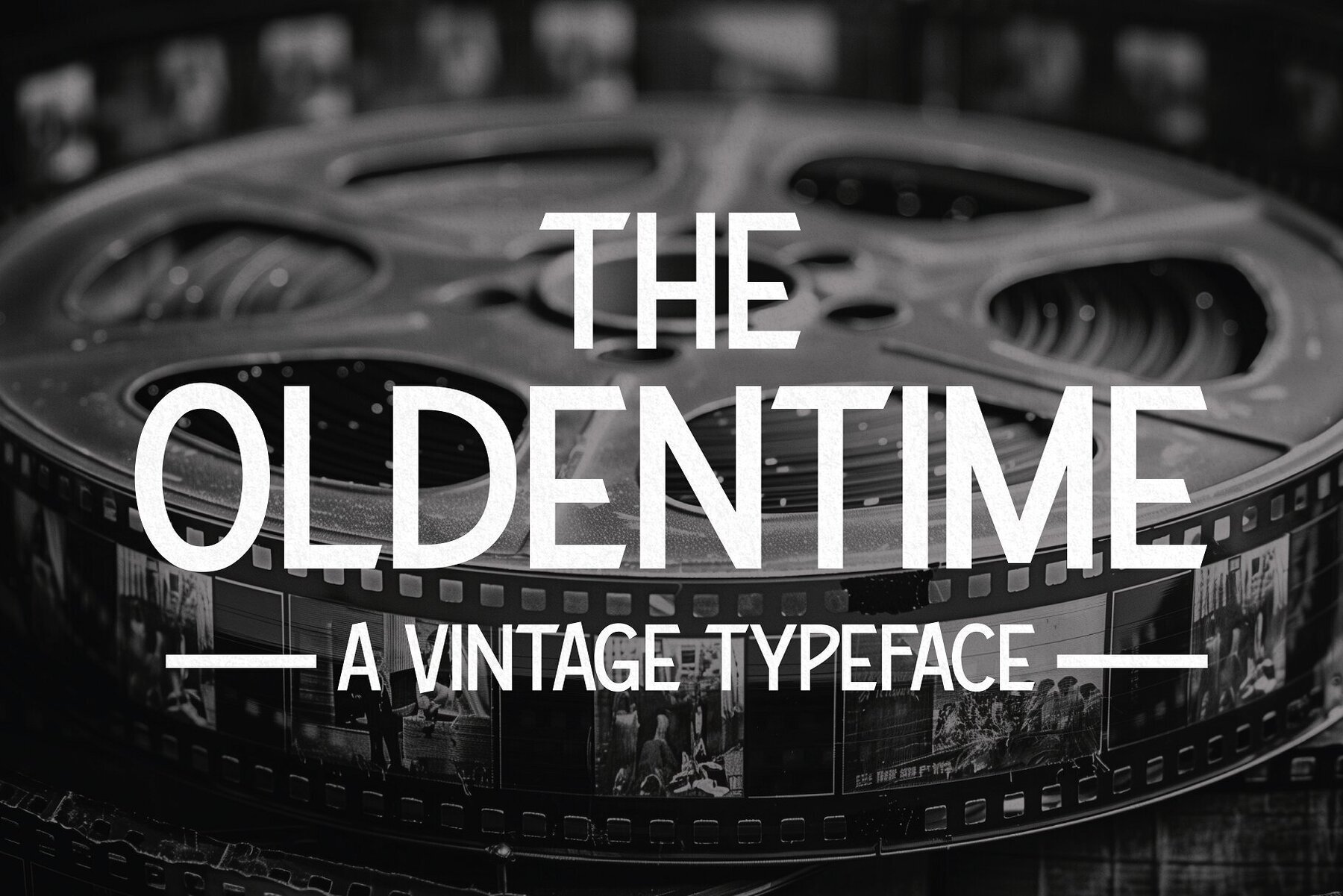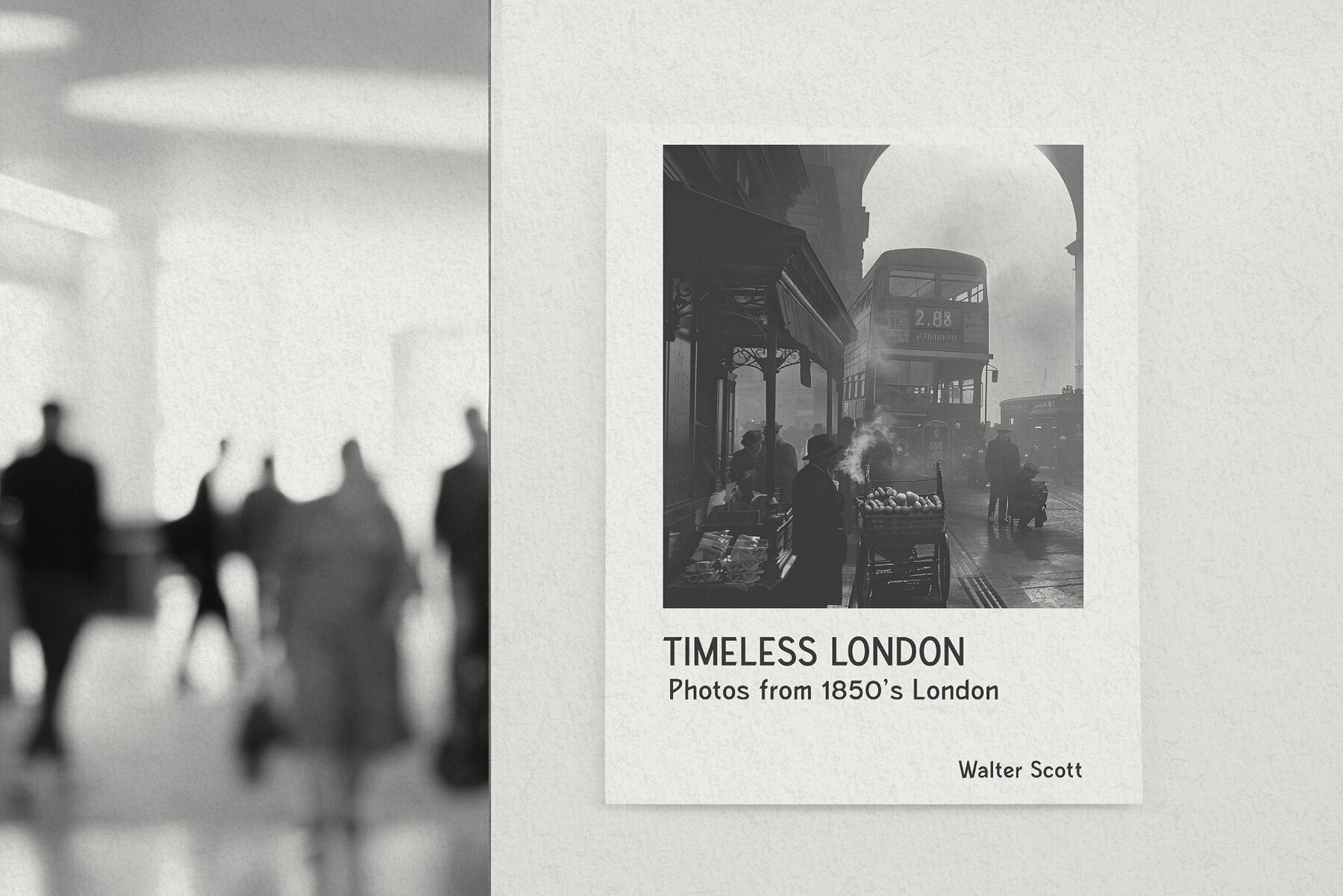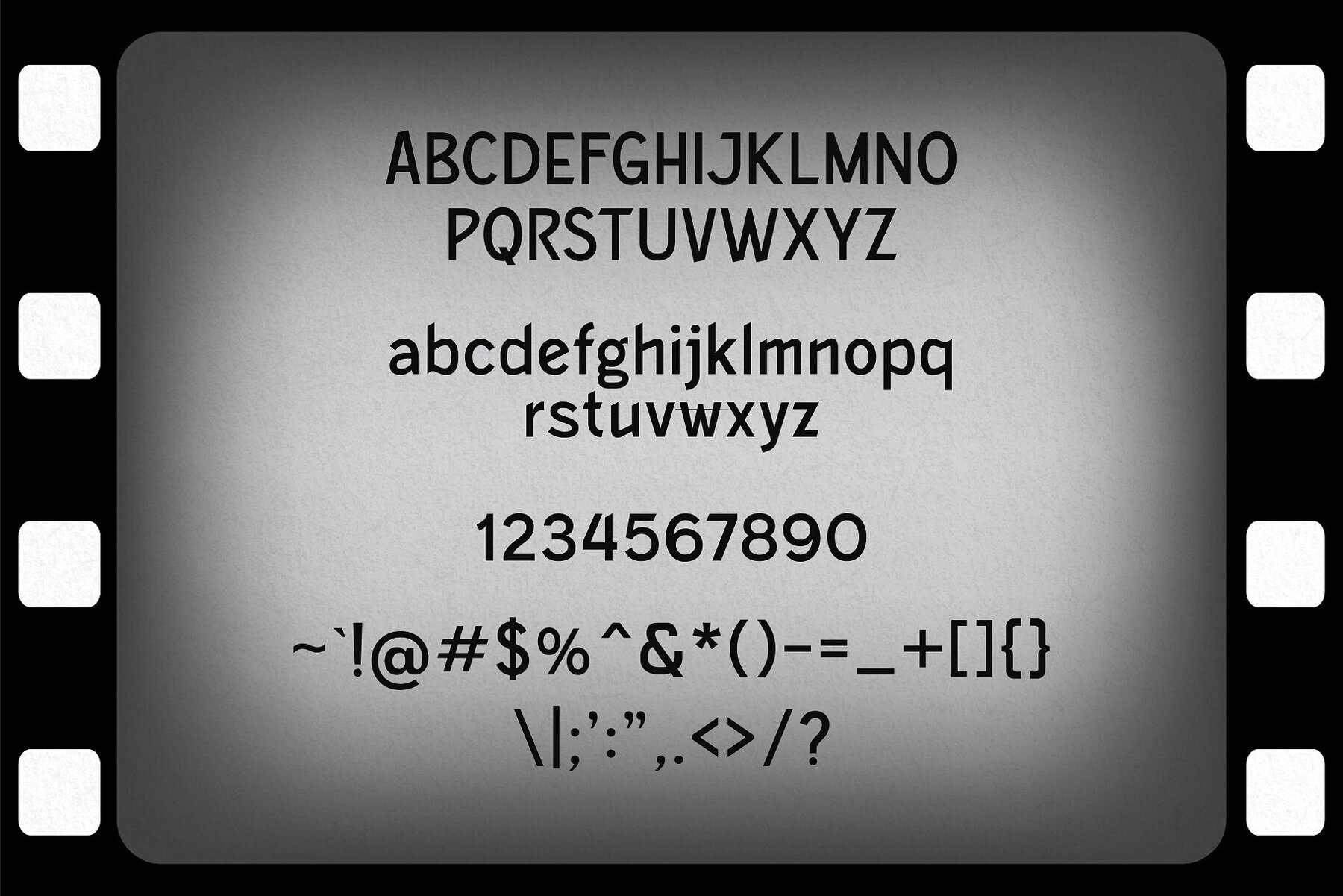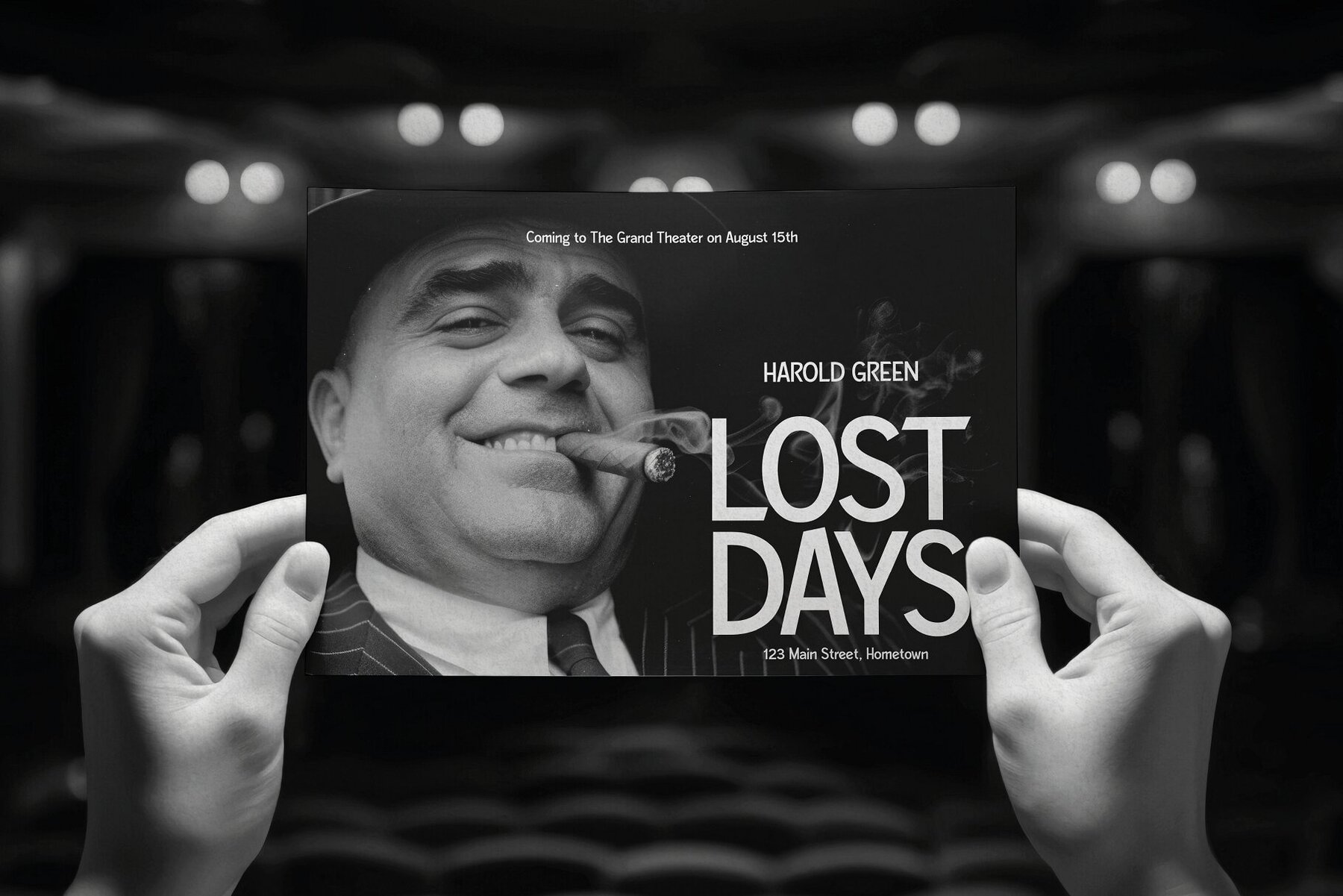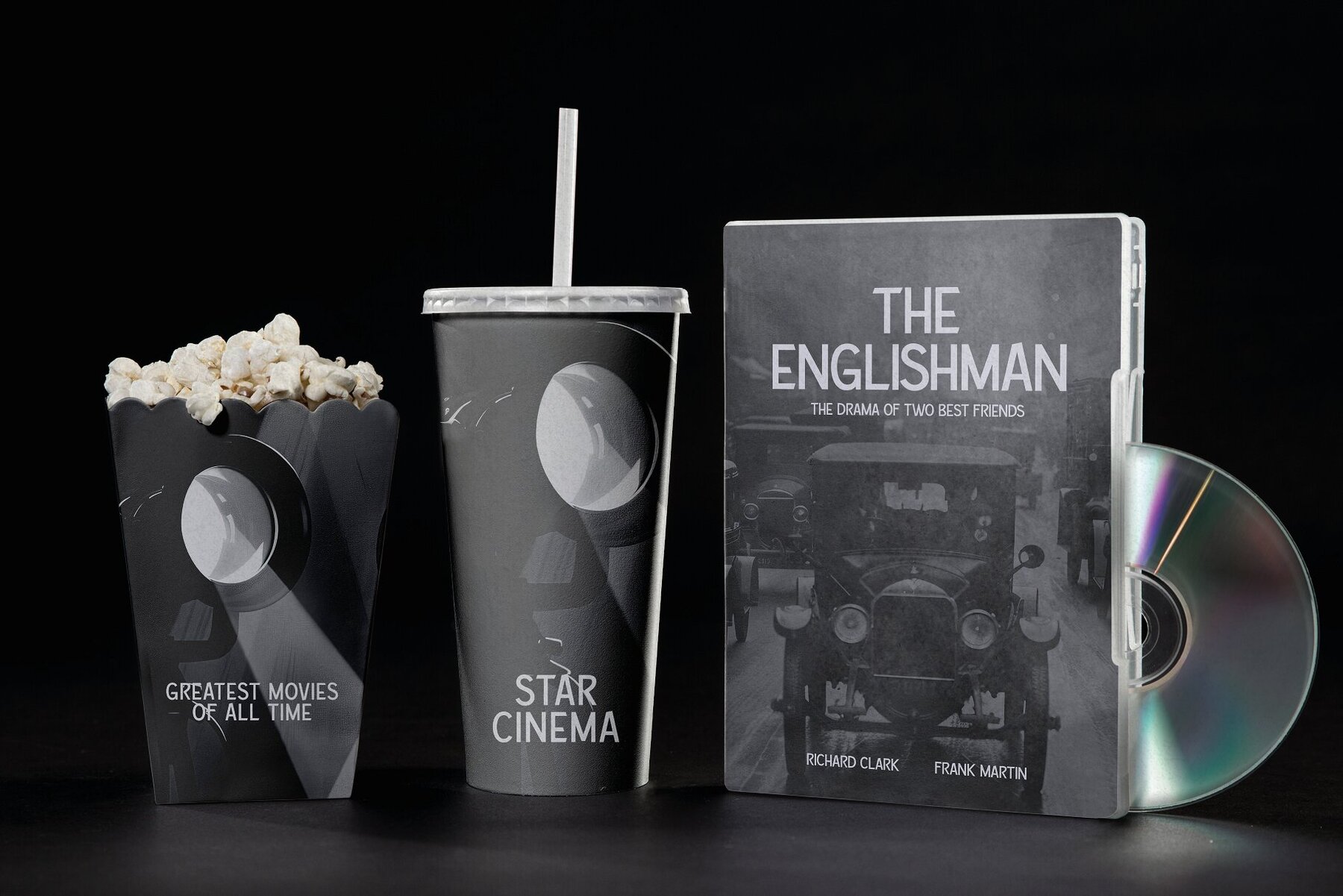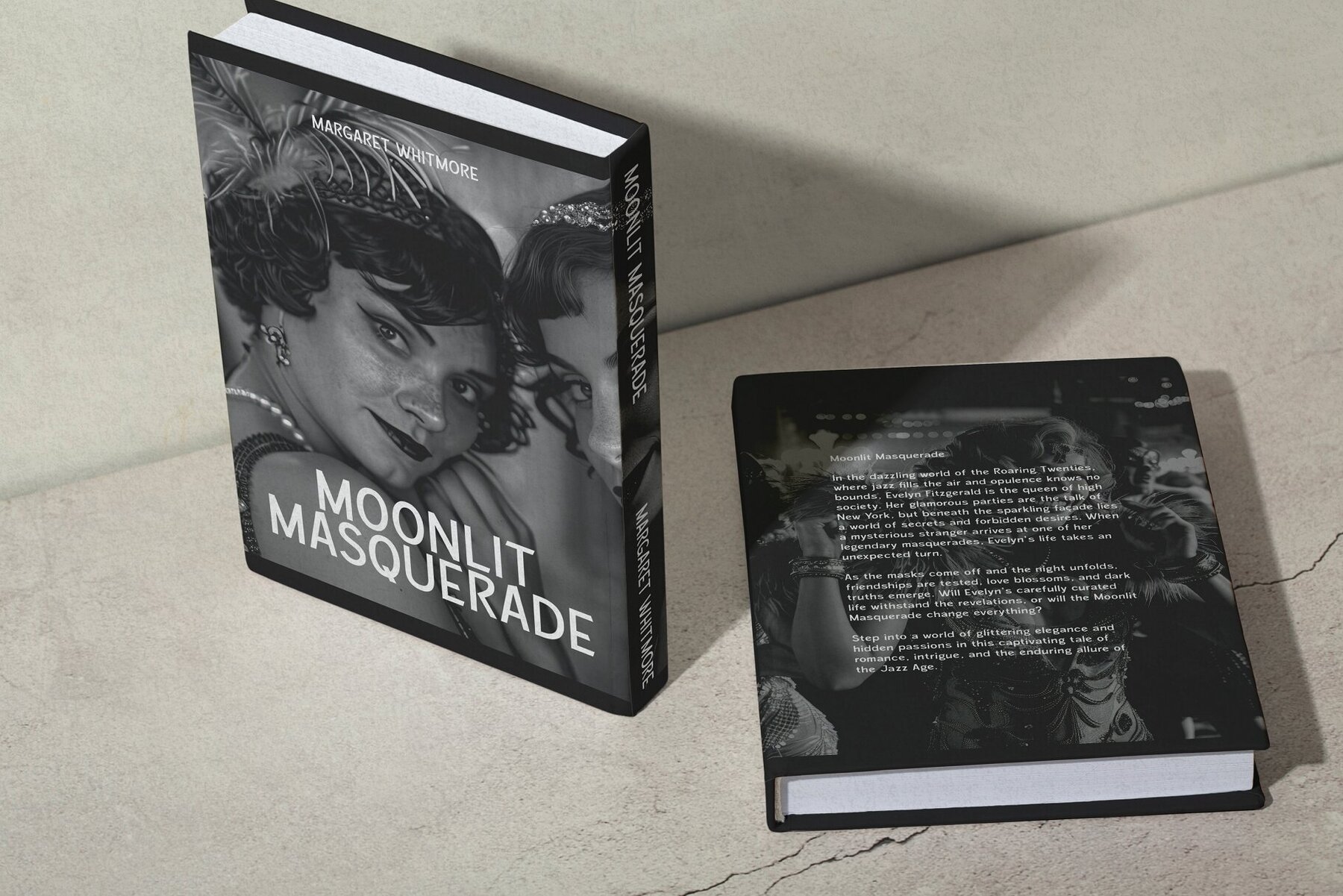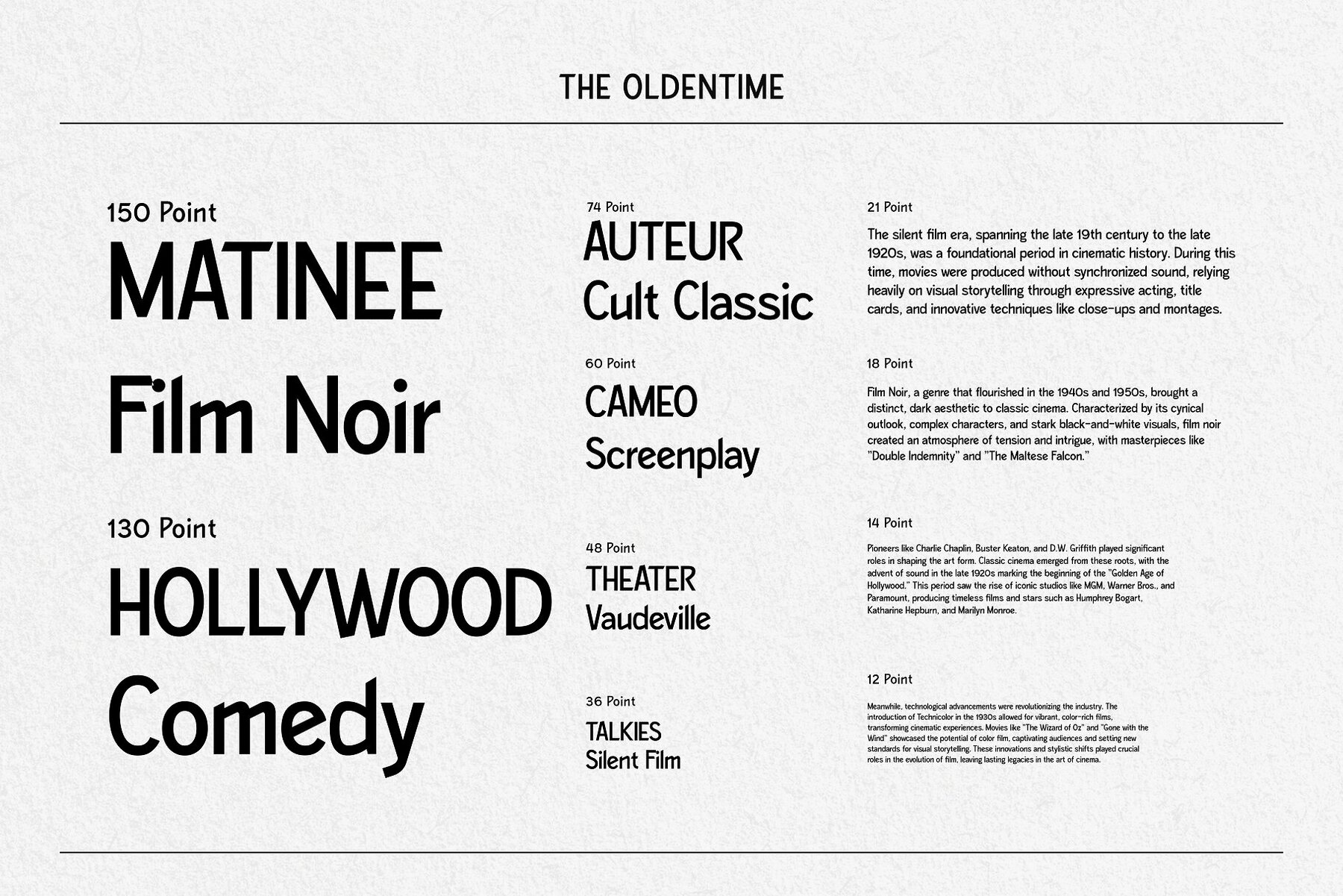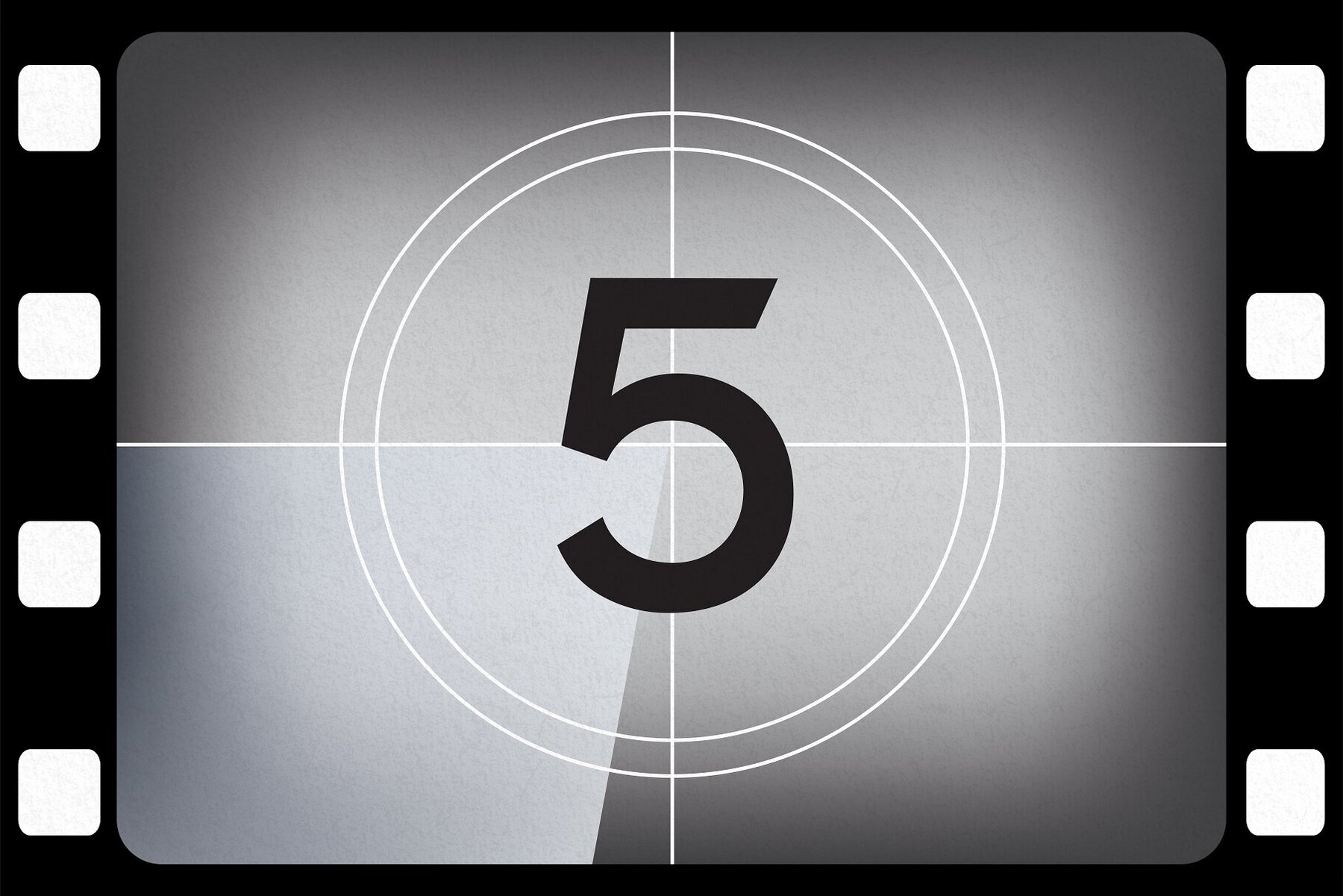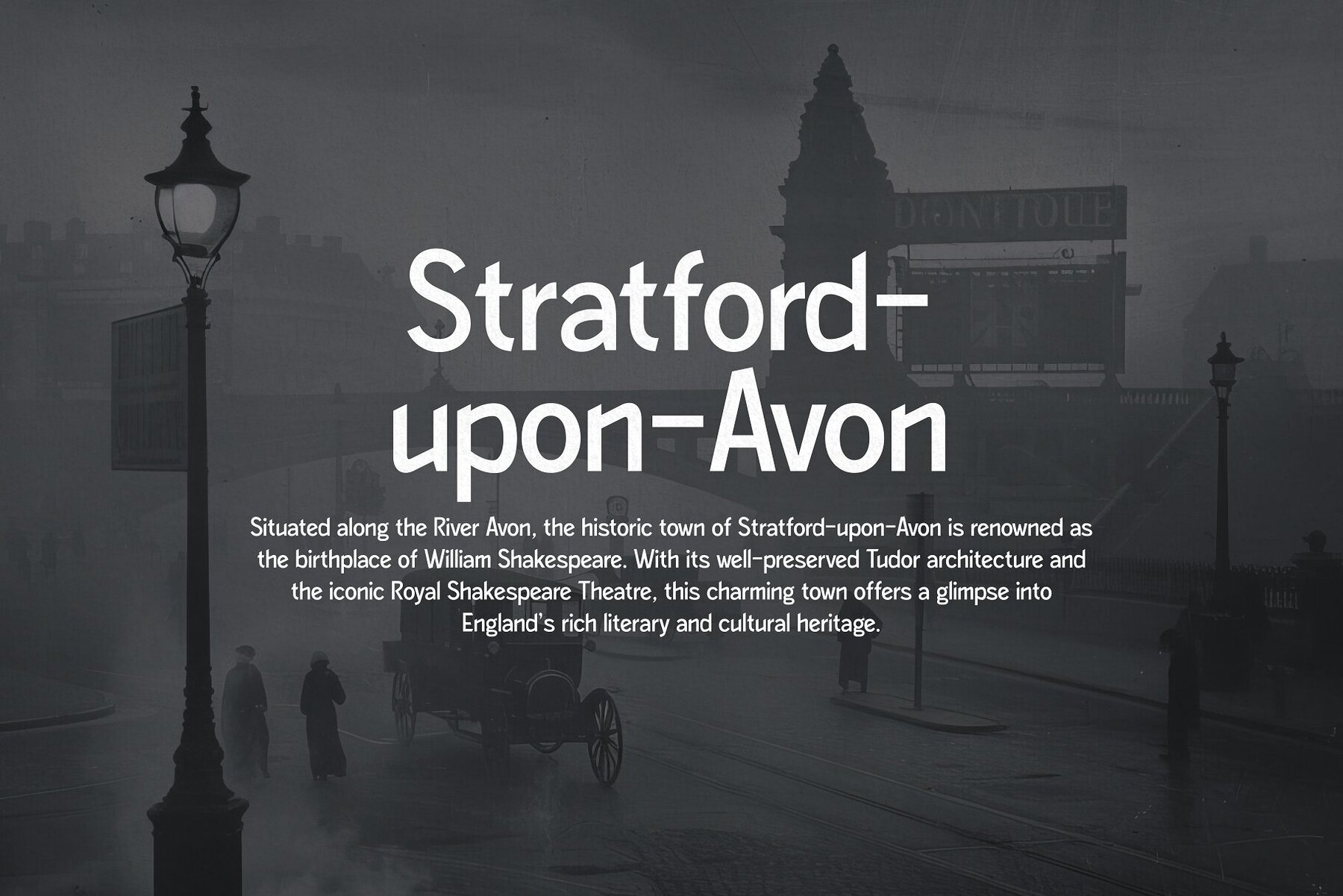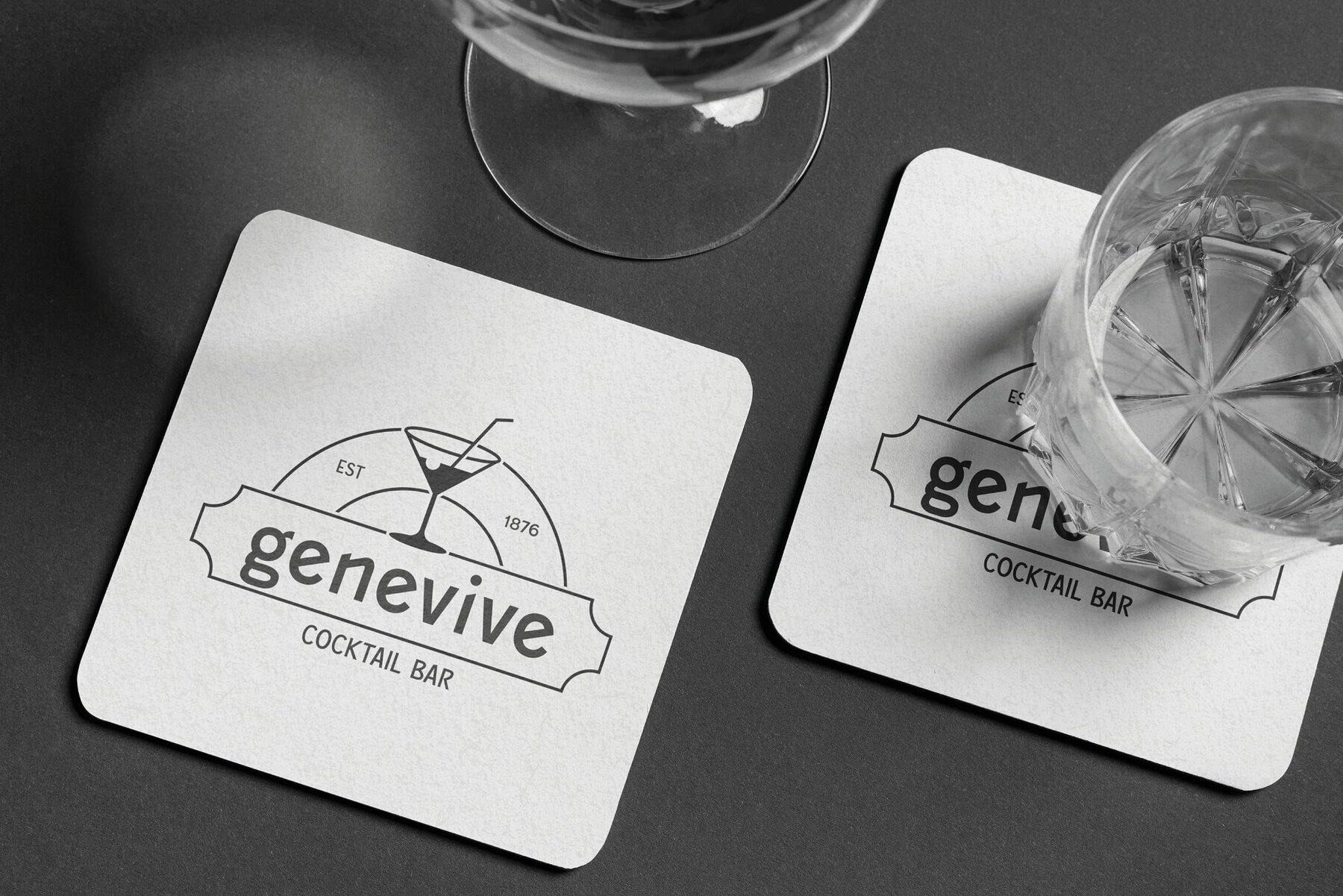
The Oldentime Font
The Oldentime Regular
Step into the glitz and glamour of the roaring twenties with The Oldentime, a captivating vintage typeface inspired by 1920s Hollywood cinema. Designed to evoke classic movie posters, silent film titles, and iconic marquees, this typeface brings a bygone era of elegance and sophistication directly to your projects. Meticulously crafted to capture the intricate details and timeless beauty of 1920s typography, The Oldentime provides a sense of nostalgia that transports audiences back to Hollywood's golden age.
Perfect for movie posters, invitations, branding, and more, this typeface adds a touch of vintage allure to any project. It channels the spirit of silent films and vintage cinema with titles that stand out in true Hollywood style. Whether designing for a glamorous gala, a themed party, or creating timeless brand identities, The Oldentime exudes vintage sophistication and class. Bring your magazines, books, and advertisements to life with a typeface that commands attention and evokes nostalgia. With The Oldentime, every letter tells a story, and every word captures the magic of a bygone era.